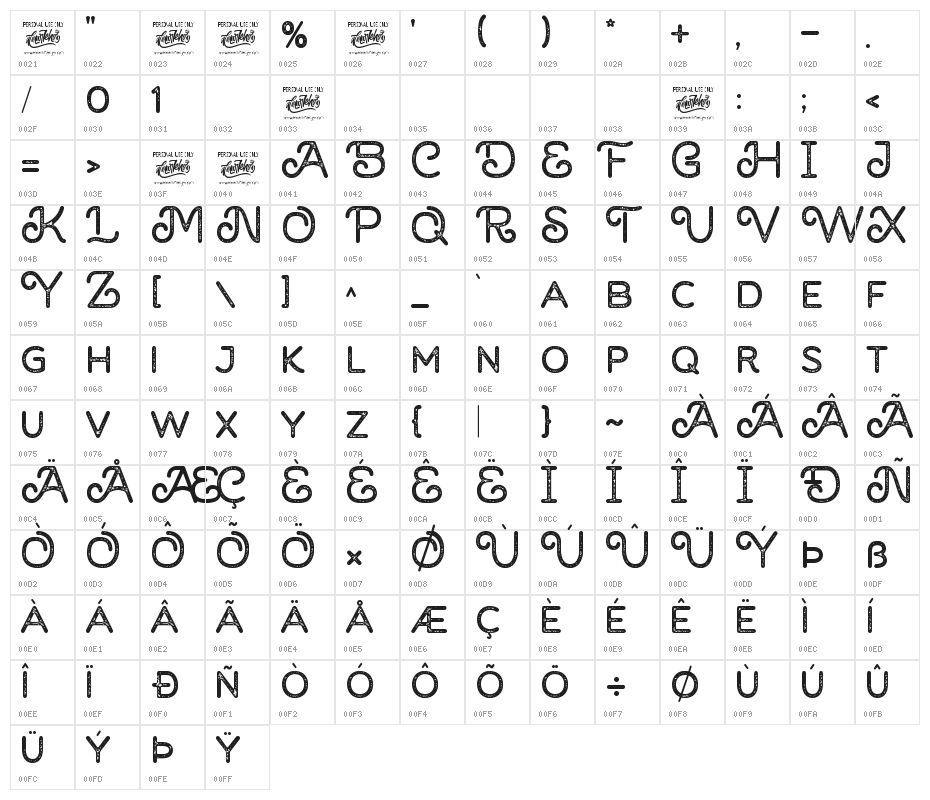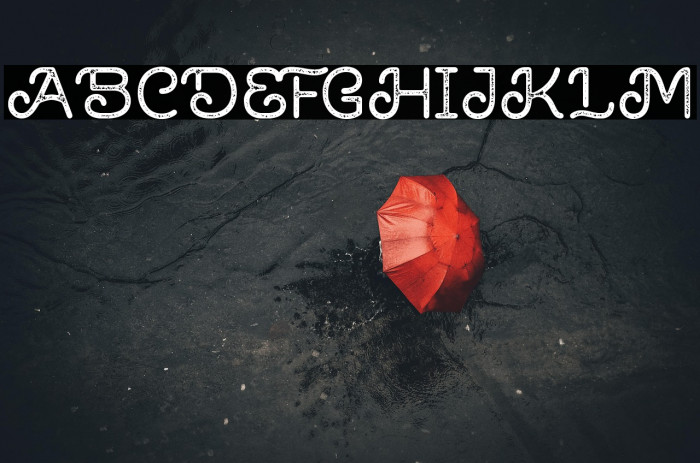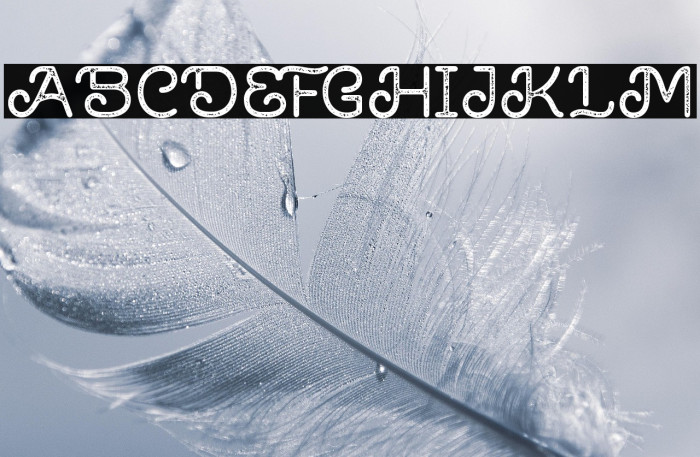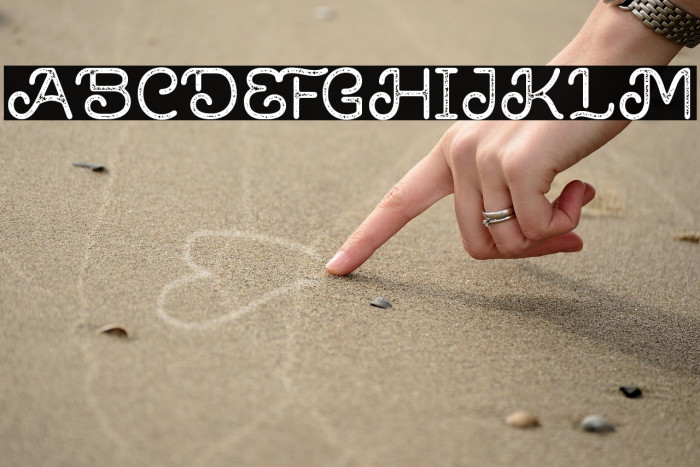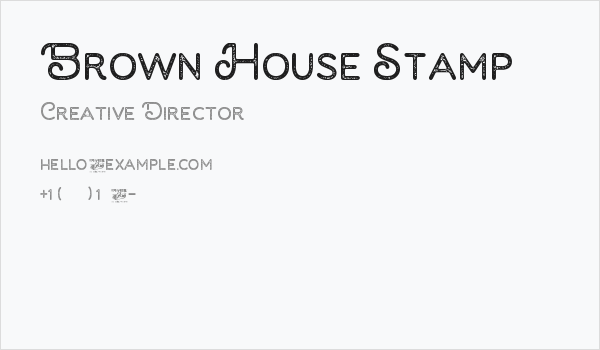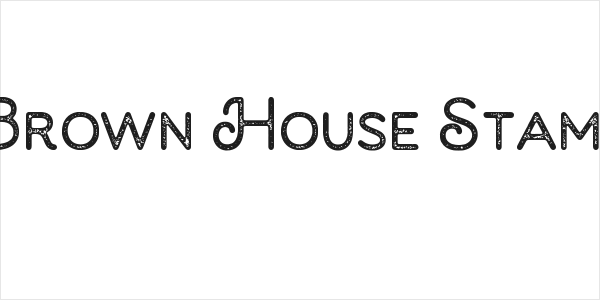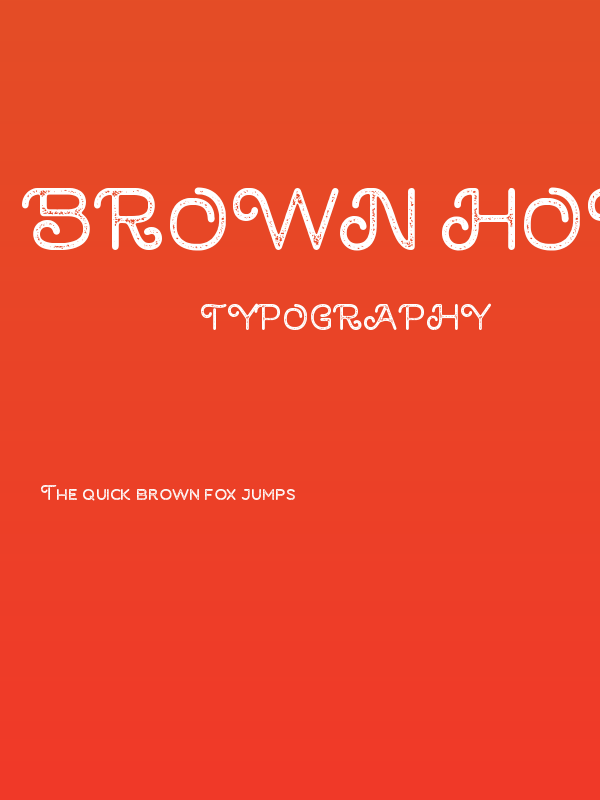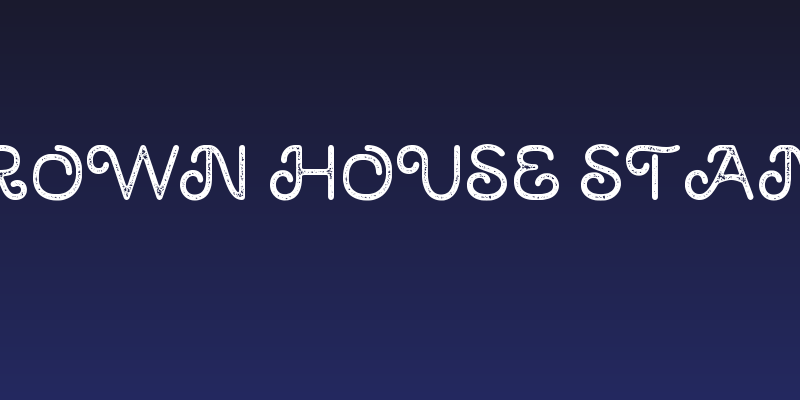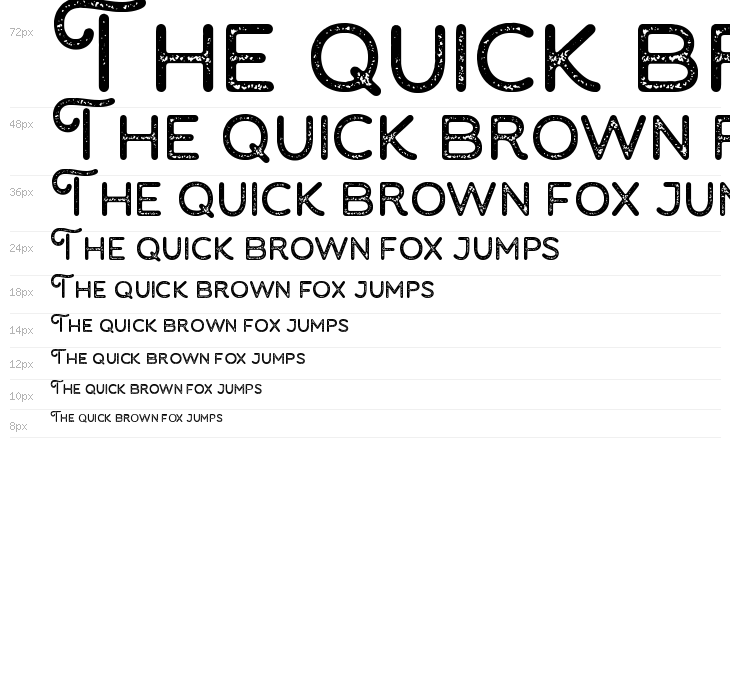
Brown House Stamp Font
Brown House Stamp Description
This font features a distinctive, textured appearance reminiscent of vintage rubber stamps. The uppercase letters are bold and slightly rounded, with a distressed effect that adds character and a handcrafted feel. The numbers and special characters maintain this textured style, ensuring consistency across all glyphs. Its unique style makes it stand out, perfect for projects that require a touch of nostalgia or a handcrafted aesthetic. The font's design is both playful and robust, making it suitable for a variety of creative applications.
| Proposed Projects | Ideal for branding, packaging, posters, and any design project that seeks a vintage or handcrafted look. |